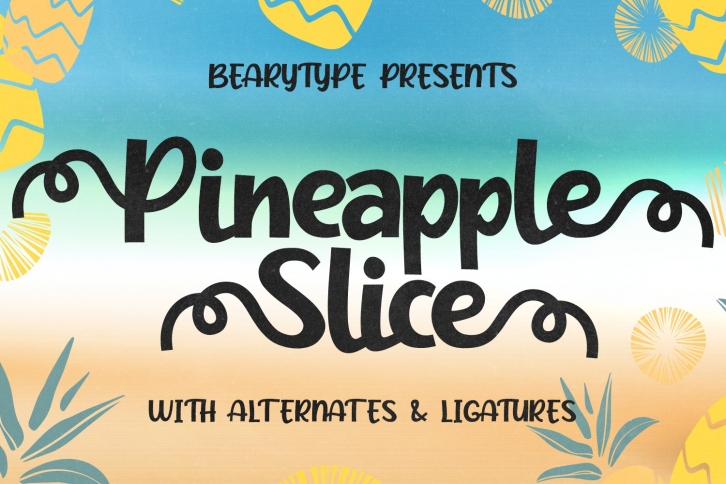
Pineapple Slice is a beautiful font that was designed by BearyType. It's a great choice for designers and creatives who need such a font. It was released on April 8, 2020 and the file size is 18.67 MB. Pineapple Slice may give a more youthful, expressive and casual look to your project. It is a very beautiful, refined, elegant, and high-quality font.